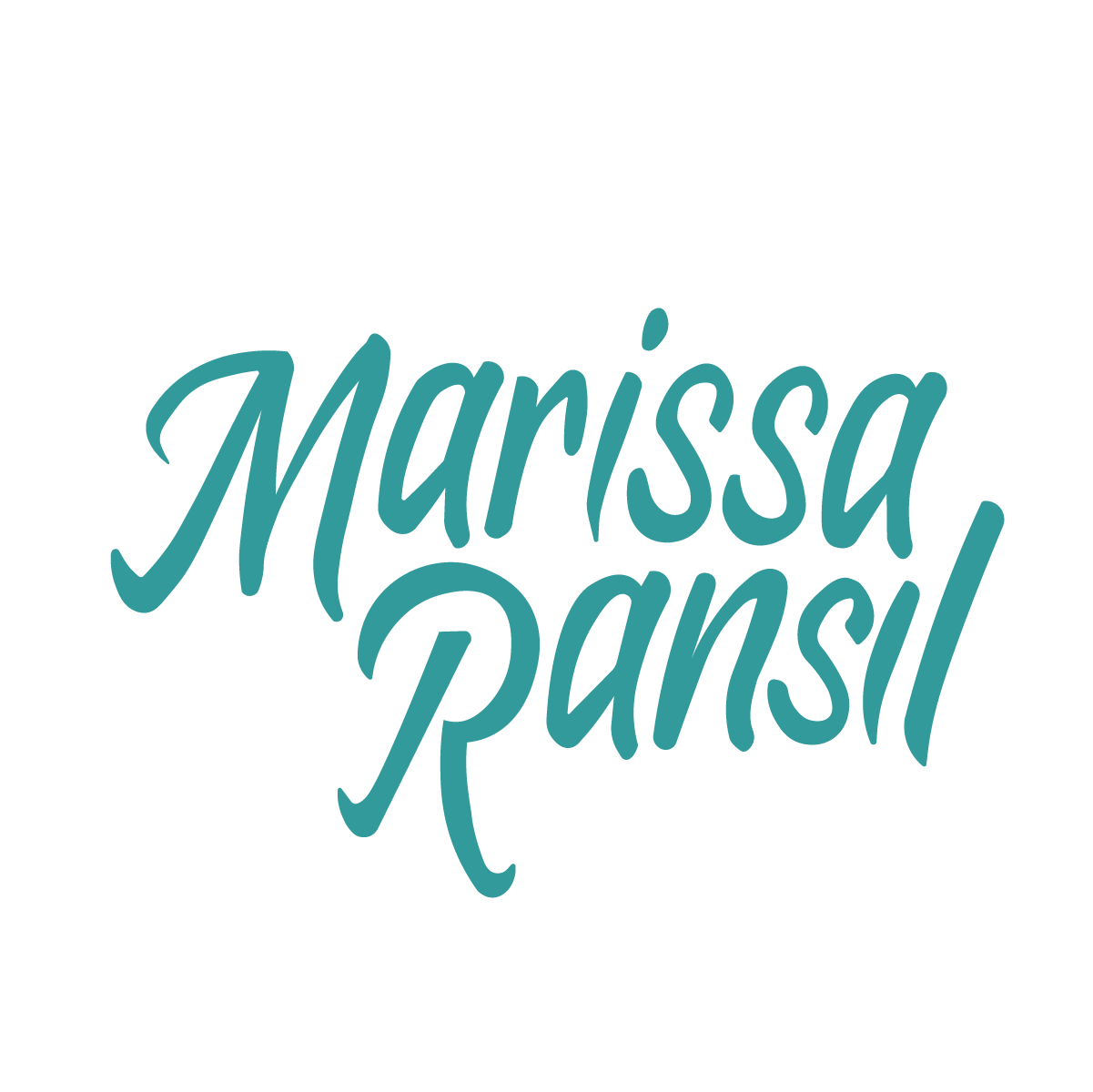
Hey guys! So this is a logo that I made for myself a while ago. It is hand-lettered but I based it off of an existing typeface. My second name will probably be changing within the next few years and I want to be able to reference the same font to update my logo, but I can’t remember which one I was looking at. If it reminds you of one that you know, please tell me!
There are dozens of Brush Script fonts that this is similar to. I suggest you run through a couple sights like DaFont or MyFonts looking for Brush Script with your name in the text box and see what comes closest for you. If I guess it’s going to be one shot in the dark after another ![]()